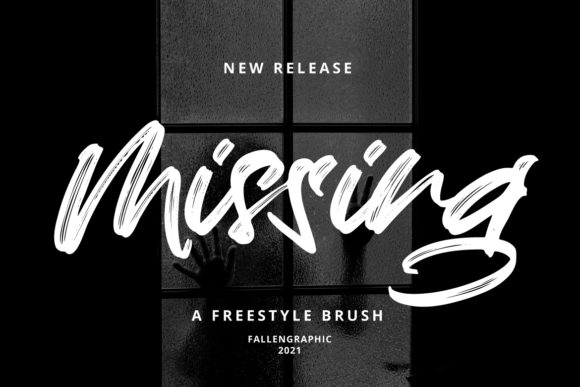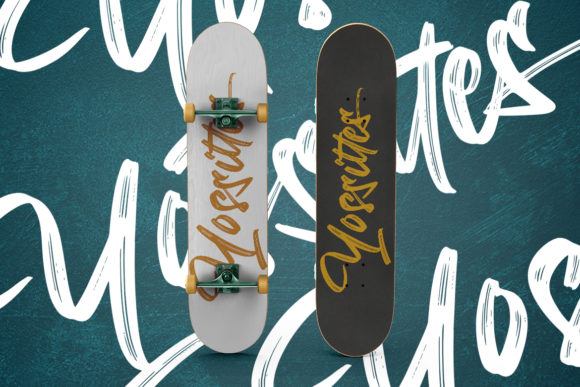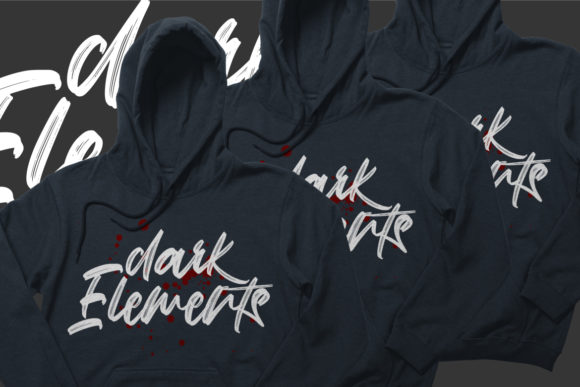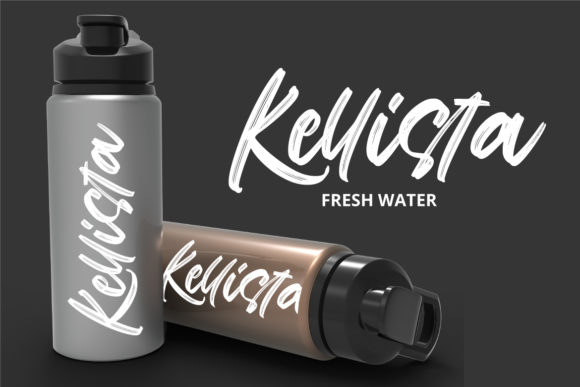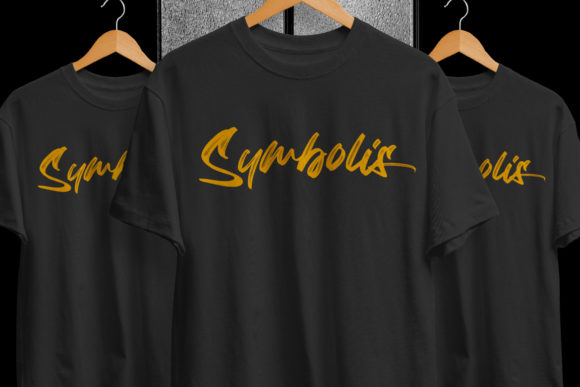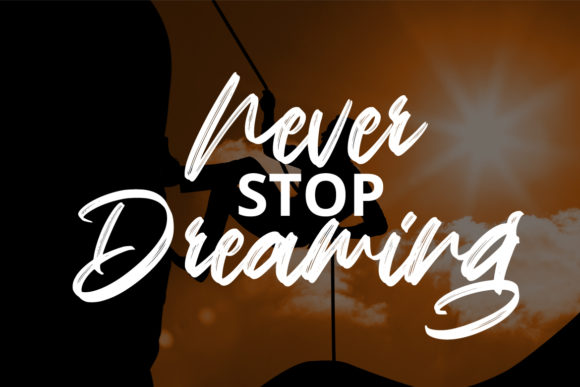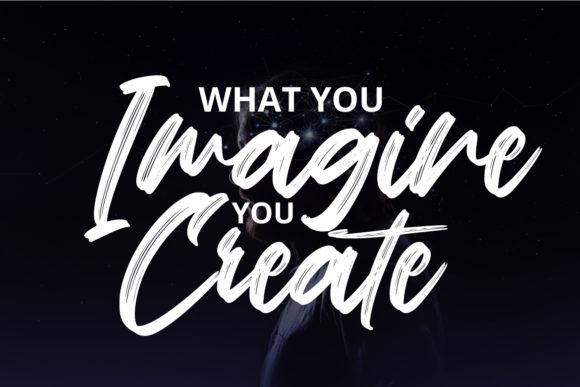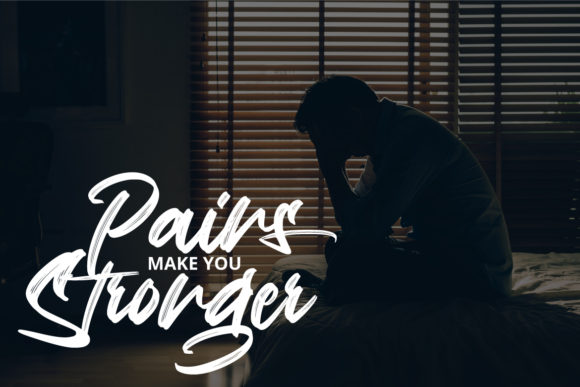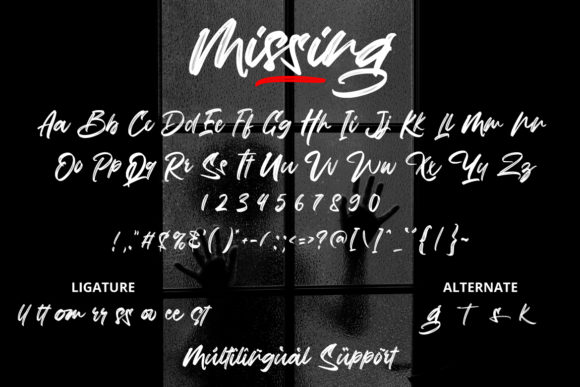
Missing Font
About Missing Font
Introducing Missing, an amazing brush style handwritten font that brings beauty and power to your designs. With its expressive brush strokes and unique character, Missing adds a touch of authenticity and raw energy to any project.
The brush style of Missing gives it a dynamic and organic feel, as if each letter was handcrafted with a brush dipped in ink. This adds a sense of personality and liveliness to your text, making it more engaging and impactful. Whether you’re creating a logo, a quote graphic, or any other design, Missing will elevate your work and make it stand out.
The versatility of Missing makes it suitable for a wide range of design applications. It works seamlessly in branding projects, adding a bold and distinctive touch to your company name or slogan. Its handwritten nature also makes it perfect for quotes and inspirational messages, conveying a sense of authenticity and emotional connection.
With Missing, you have the freedom to explore various design compositions. The uneven brush strokes and subtle imperfections give it a natural and organic look, allowing you to create designs that feel handcrafted and personal. You can experiment with different letter combinations, mix uppercase and lowercase letters, and add flourishes and ligatures to customize your designs further.
The power of Missing lies in its ability to evoke emotion and capture attention. It has a way of drawing people in, inviting them to connect with your message on a deeper level. Whether you’re aiming for a bold and impactful design or a more delicate and heartfelt expression, Missing delivers with its authentic brush style.
So, embrace the beauty and power of Missing in your next design project. Let its brush style captivate your audience and leave a lasting impression. Whether you’re aiming for a modern and edgy look or a soft and romantic feel, Missing will be the perfect companion to elevate your designs and make them truly unforgettable.
Unleash the potential of Missing and witness the transformation of your designs into something beautiful and powerful. Let this amazing brush style handwritten font be the secret ingredient that takes your design to new heights.